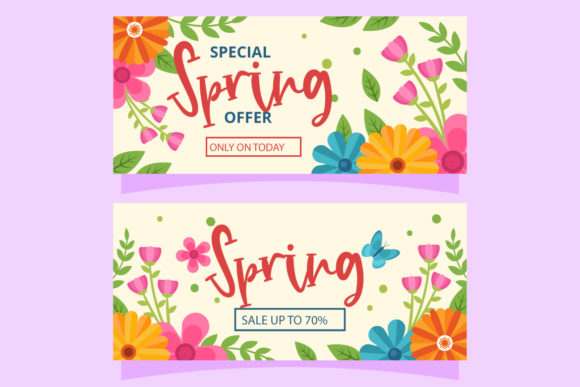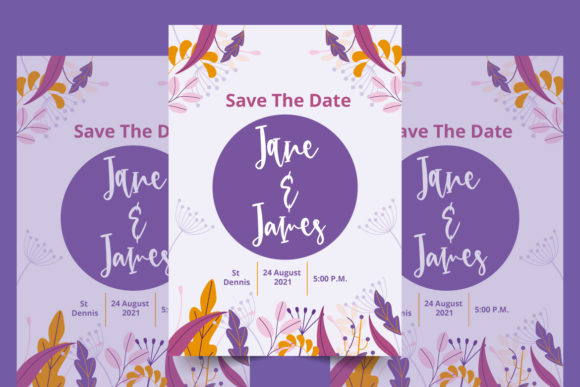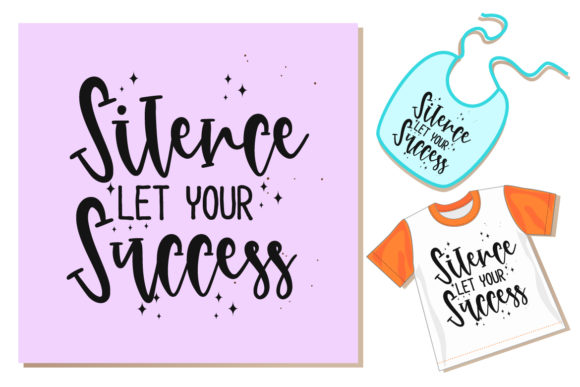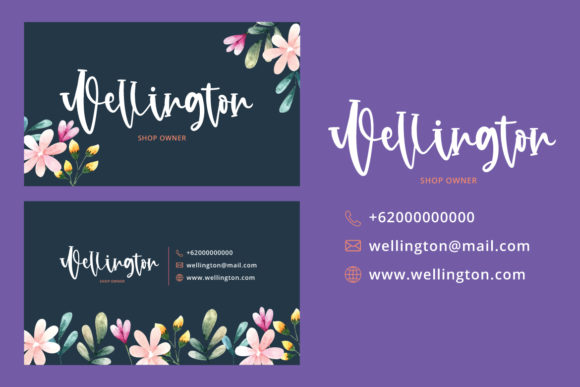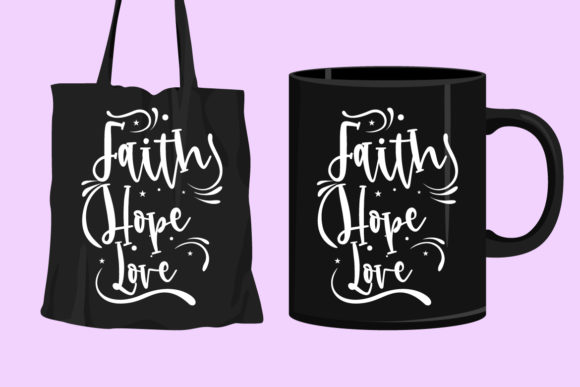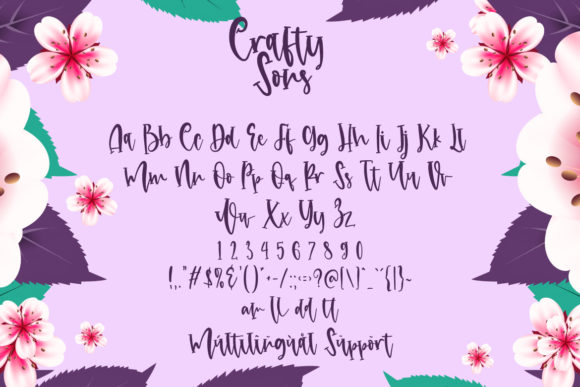
Crafty Sons Font: Elevate Your Designs with a Timeless Handwritten Style
Are you a designer or crafter looking for a font that can add a personal touch to your creations? Look no further than Crafty Sons Font, a lovely and timeless handwritten font that is perfect for creating eye-catching logos, branding, and quotes. With its unique and beautiful touch, Crafty Sons Font is sure to make your design come alive!
Handwritten fonts have a way of adding a personal and human touch to any design. They can evoke emotions, convey personality, and create a sense of connection with the viewer. In a world where digital fonts are often sterile and uniform, handwritten fonts like Crafty Sons Font offer a refreshing alternative.
What Makes Crafty Sons Font Special?
Crafty Sons Font is a standout among handwritten fonts due to its unique and beautiful touch. Every letter has been carefully crafted to have its own distinct character, making it perfect for creating designs that are both elegant and eye-catching. Whether you’re looking to create a logo, branding materials, or inspirational quotes, Crafty Sons Font is the perfect choice.
When it comes to creating a logo or branding materials, the font you choose can make all the difference. Crafty Sons Font is an excellent choice for several reasons:
- Uniqueness: Crafty Sons Font is a one-of-a-kind font that will help your brand stand out from the crowd.
- Elegance: The font’s elegant and refined style makes it perfect for creating high-end branding materials.
- Versatility: Crafty Sons Font can be used in a variety of design applications, from logos and business cards to packaging and website headers.
Inspirational Quotes and Typography
Crafty Sons Font is also perfect for creating inspirational quotes and typography. The font’s beautiful and flowing script makes it ideal for creating visually stunning quotes that will inspire and motivate your audience.
Why Choose Crafty Sons Font?
So why choose Crafty Sons Font over other handwritten fonts? Here are just a few reasons:
- High-quality design: Crafty Sons Font has been carefully designed to ensure that every letter is of the highest quality.
- Easy to read: Despite its elegant style, Crafty Sons Font is easy to read, making it perfect for use in a variety of design applications.
- Unique style: Crafty Sons Font has a unique style that will help your designs stand out from the crowd.
Tips for Using Crafty Sons Font
Here are a few tips for getting the most out of Crafty Sons Font:
- Use it sparingly: While Crafty Sons Font is beautiful, it can be overwhelming if used too much. Use it sparingly to create emphasis and add visual interest to your designs.
- Experiment with colors: Crafty Sons Font looks great in a variety of colors, so don’t be afraid to experiment and find the perfect color for your design.
- Pair it with other fonts: Crafty Sons Font can be paired with other fonts to create a unique and visually stunning design.
Crafty Sons Font is a timeless and lovely handwritten font that is perfect for designers and crafters looking to add a personal touch to their creations. With its unique and beautiful touch, Crafty Sons Font is sure to make your design come alive! Whether you’re creating logos, branding materials, or inspirational quotes, Crafty Sons Font is the perfect choice.